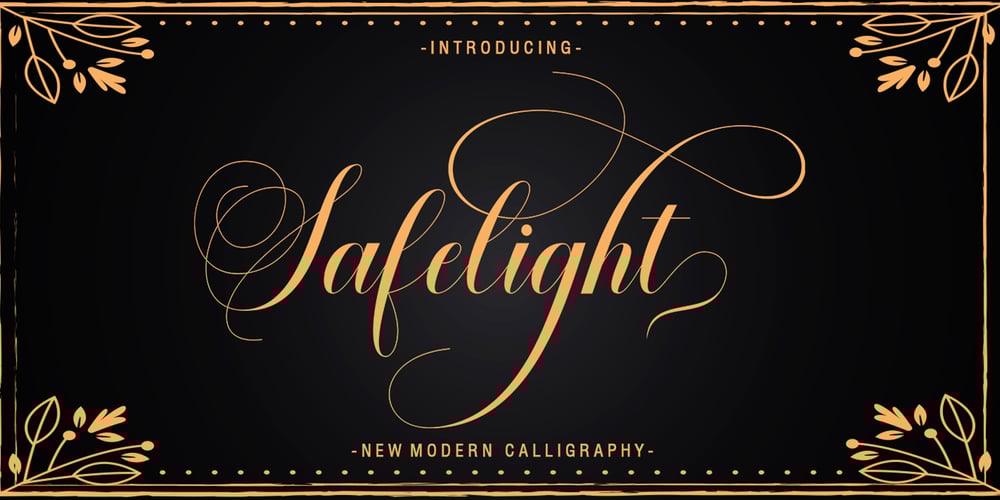
Safelight Script
Safelight Script font
Safelight Script Font Family was designed by Zaki Muhammad and published by madjack.font. Safelight Script contains 1 styles and family package options. Safelight Script is a modern calligraphy design. This typeface is casual and beautiful with swashes and can be used for various purposes such as logos, product packaging, wedding invitations, branding, headlines, signage, labels, signatures, book covers, posters, quotes, and more. Safelight Script includes changes in OpenType language style, binders and international support for most Western languages. To enable the alternative OpenType Alternative, you need a program that supports OpenType features such as Adobe Illustrator CS, Adobe Indesign & CorelDraw X6-X7, Microsoft Word 2010 or later versions. How to access all alternative characters using Adobe Illustrator:https://www.youtube.com/watch?v=XzwjMkbB-wQ Safelight Script is coded with Unicode PUA, which allows full access to all additional characters without having special design software. Mac users can use Letter Book, and Windows users can use Character Maps to view and copy any of the additional characters to attach to your favorite text editor / application. How to access all alternative characters, using Windows Character Map with Photoshop: https://www.youtube.com/watch?v=Go9vacoYmBw If you need help or have questions, let me know. I am happy to help!